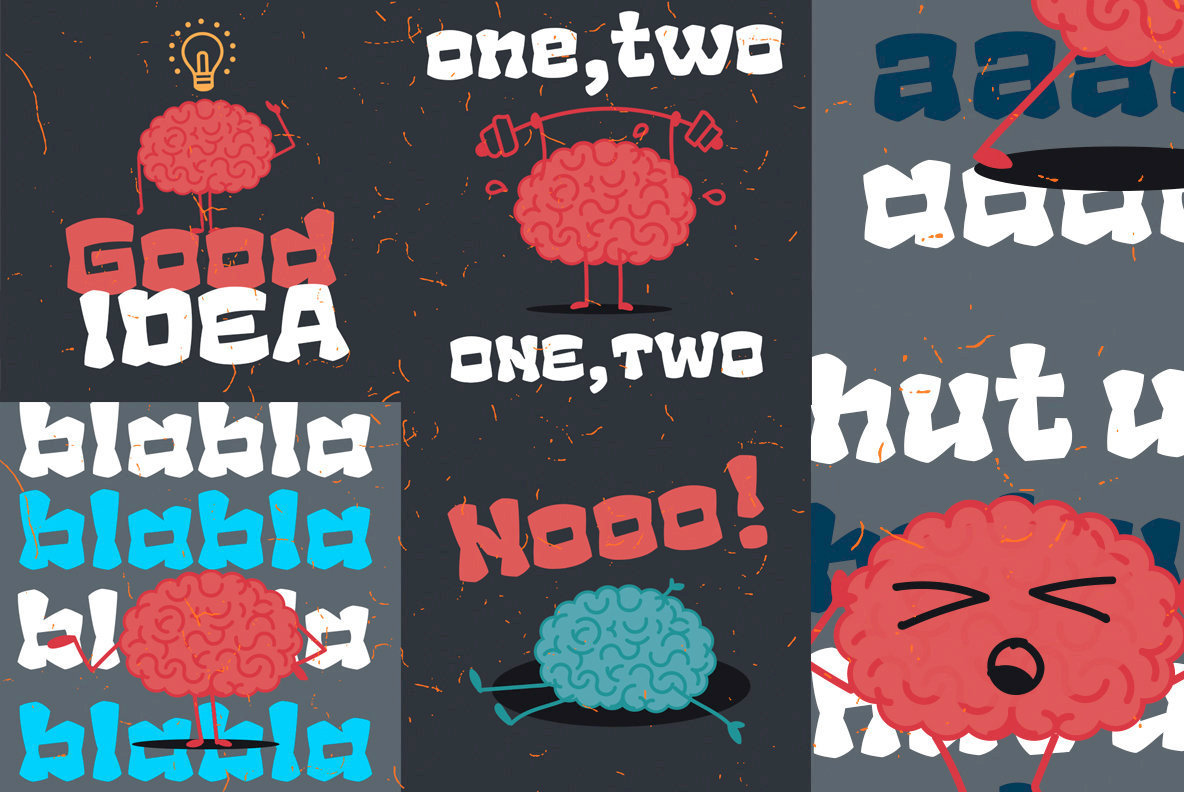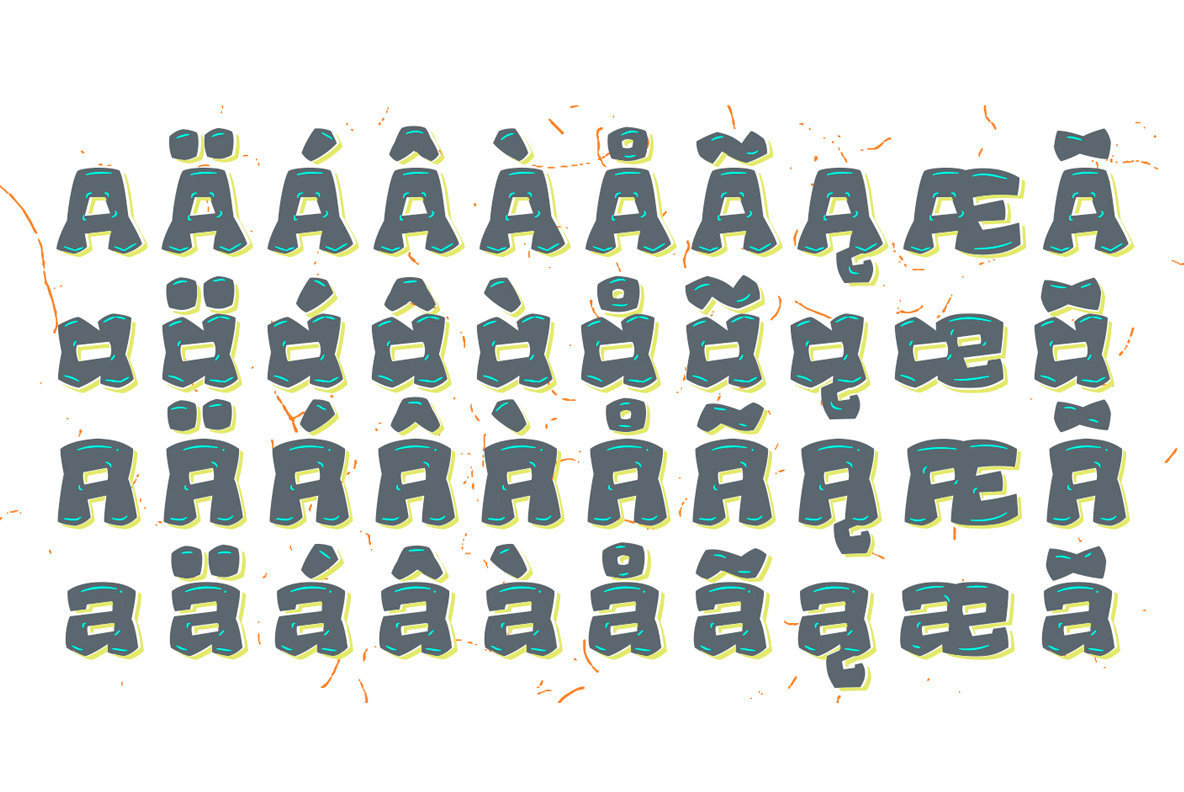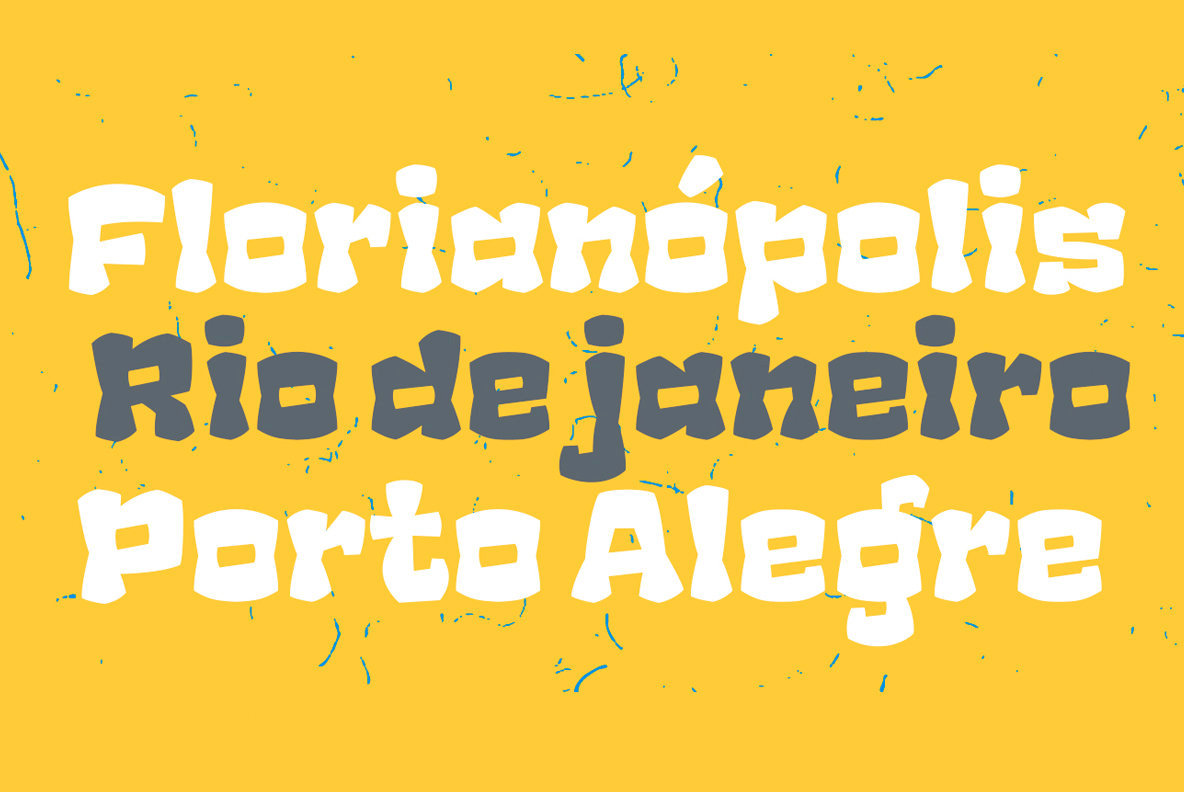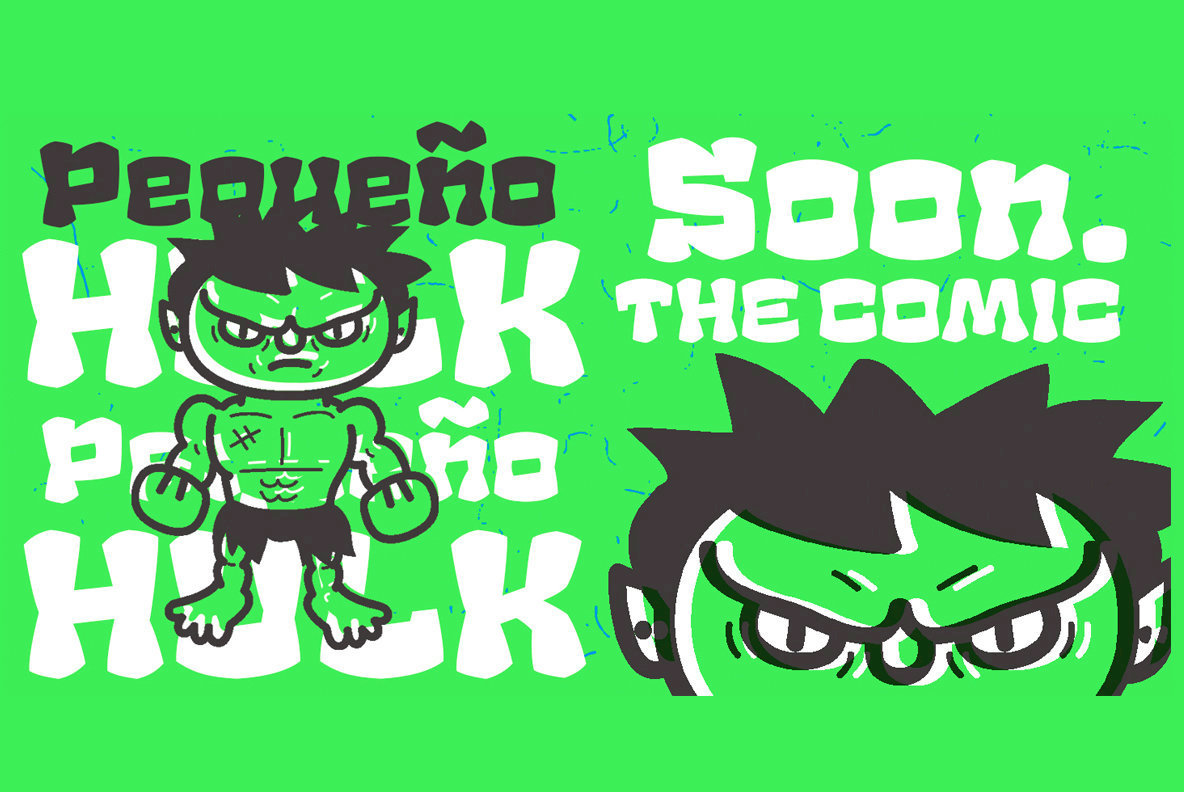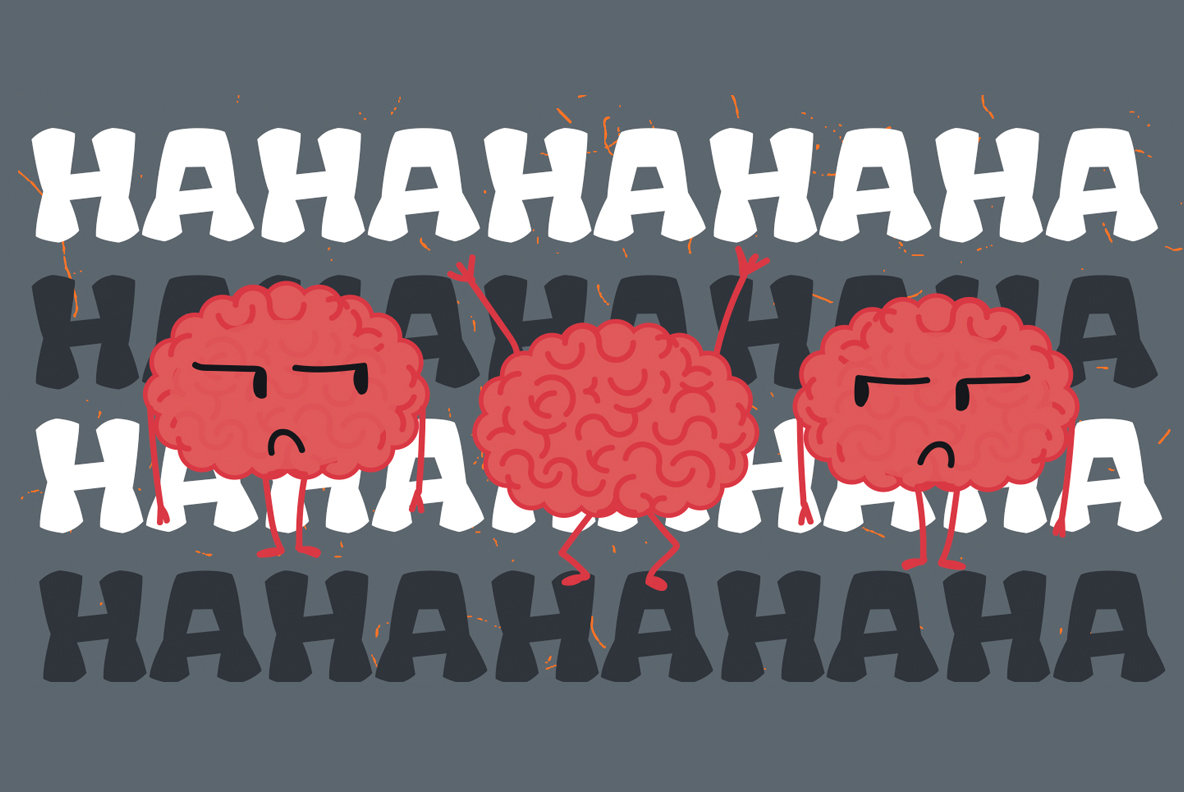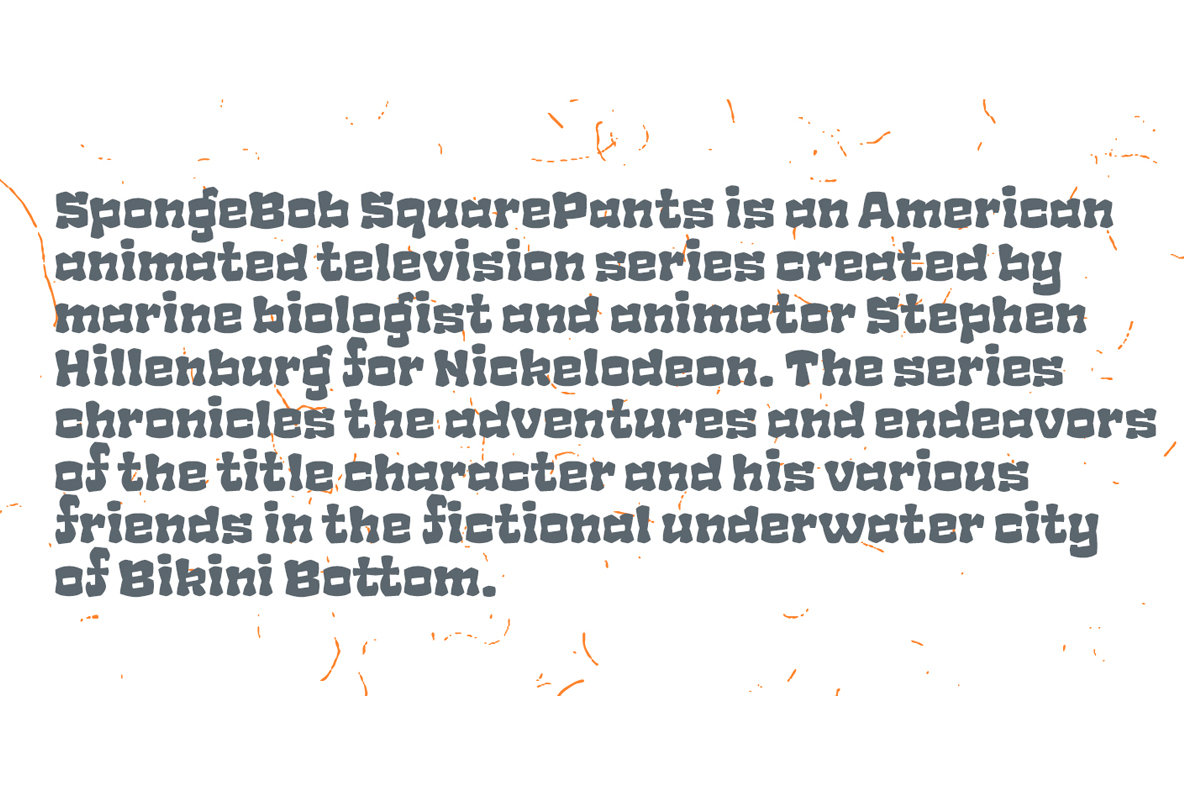
Rague Pro Font
Rague Pro stands out as a sans-serif font meticulously crafted for captivating titles. Its robust and dynamic nature allows it to command attention, making it an excellent choice for graphic designers aiming to leave a striking impression.Rague Pro: Dynamic Sans for Eye-Catching Titles